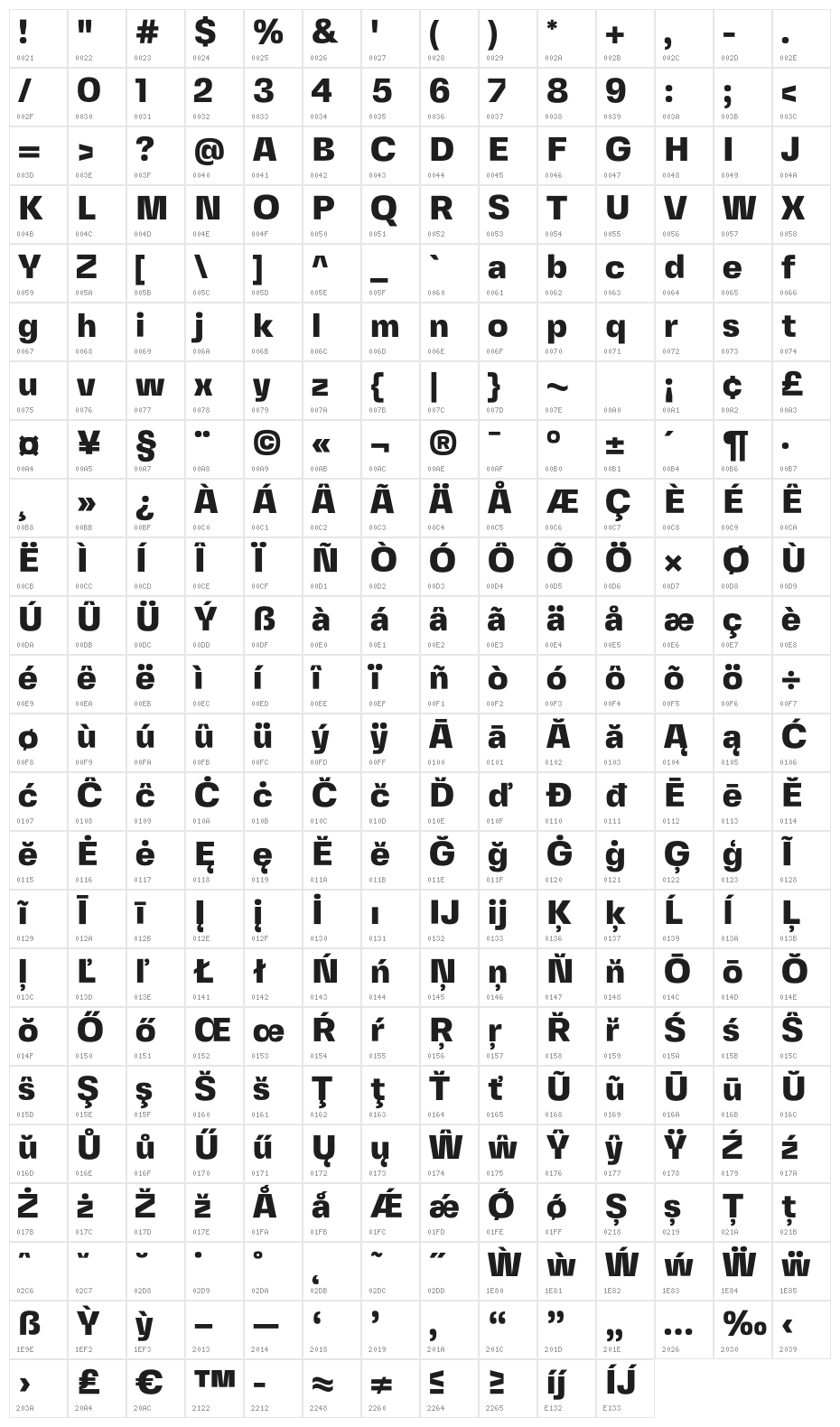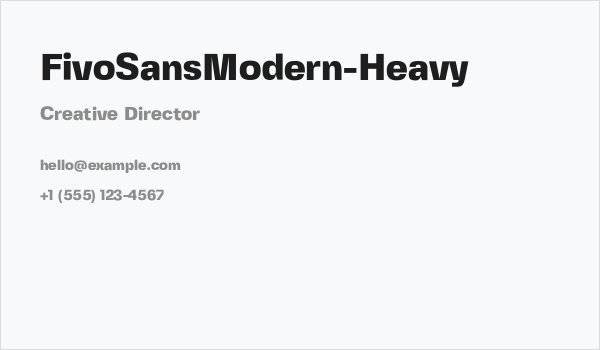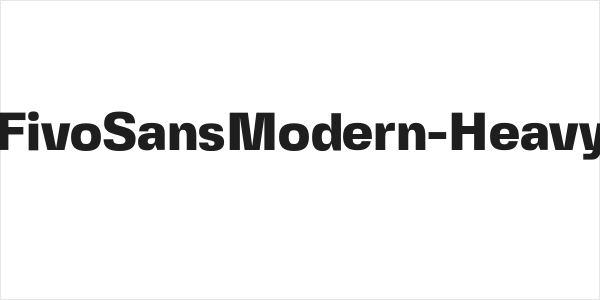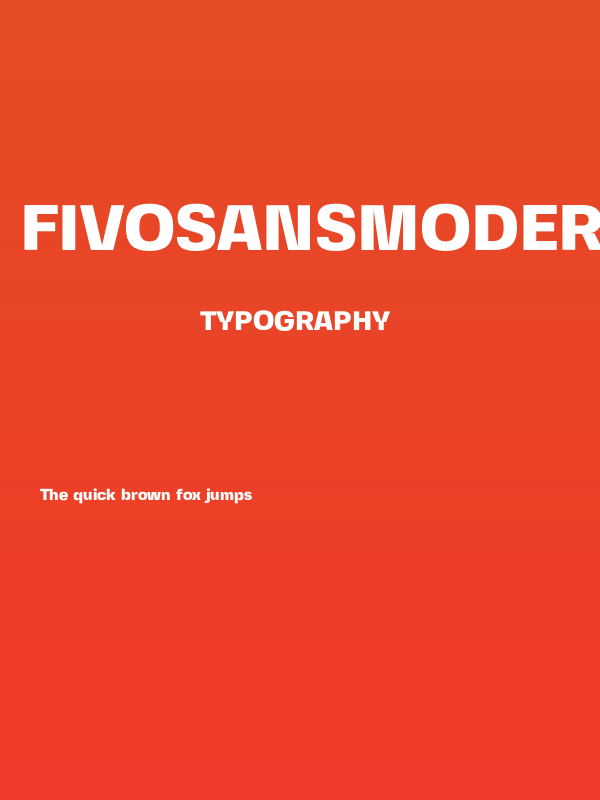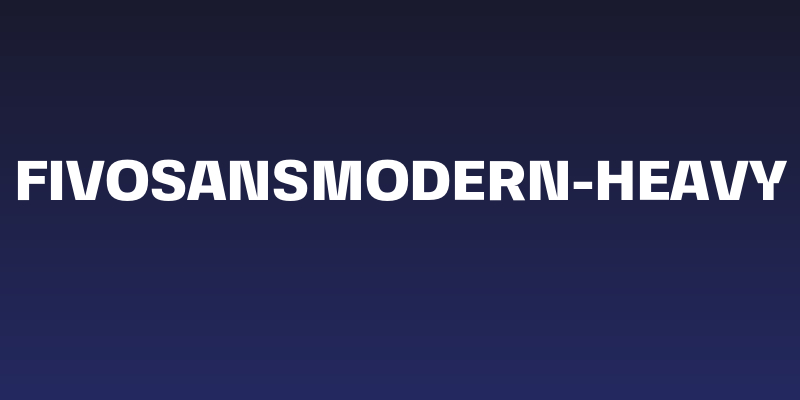
FivoSansModern-Heavy Font
FivoSansModern-Heavy Description
This font exhibits a bold and modern sans-serif style, characterized by its heavy weight and clean lines. The uppercase and lowercase letters are uniform in width, providing a cohesive and balanced appearance. The numerals are clear and distinct, ensuring readability. Special characters are well-defined, maintaining the font's overall robust aesthetic. The design is straightforward yet impactful, making it suitable for various applications where a strong visual presence is desired.
| Use Case | Headlines, Logos, Advertising |
| Proposed Projects | Ideal for branding, advertising, headlines, and signage where a strong and modern look is required. |